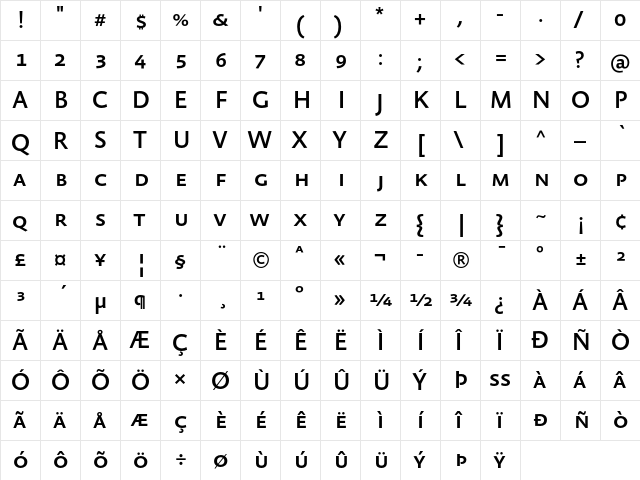
AbsaraSansTF-MediumSC Regular Font Preview
AbsaraSansTF-MediumSC Regular
Design Context for AbsaraSansTF-MediumSC Typeface
AbsaraSansTF-MediumSC is a composed and adaptable typeface that performs quietly and consistently across a wide range of design contexts.